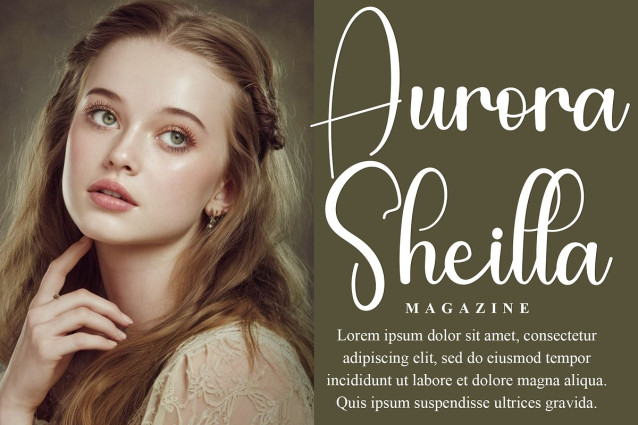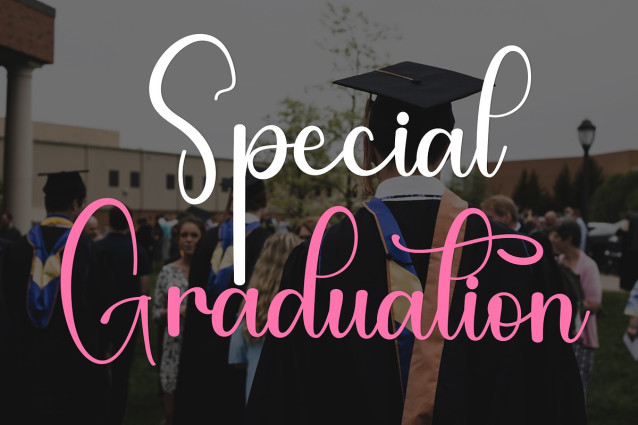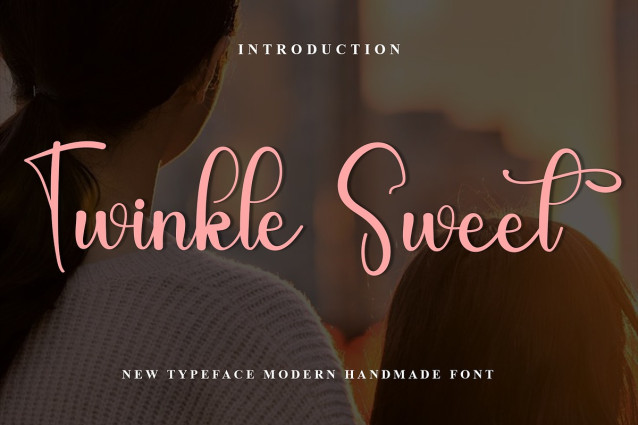
Twinkle Sweet Handwriting Font
Twinkle Sweet Handwriting Font is a beautiful and eye-catching font designed with a soft, unique touch. Its distinctive strokes give it a special character, making it meaningful and versatile for future use. With various characters, it’s perfect for design projects, crafts, and other creative works.